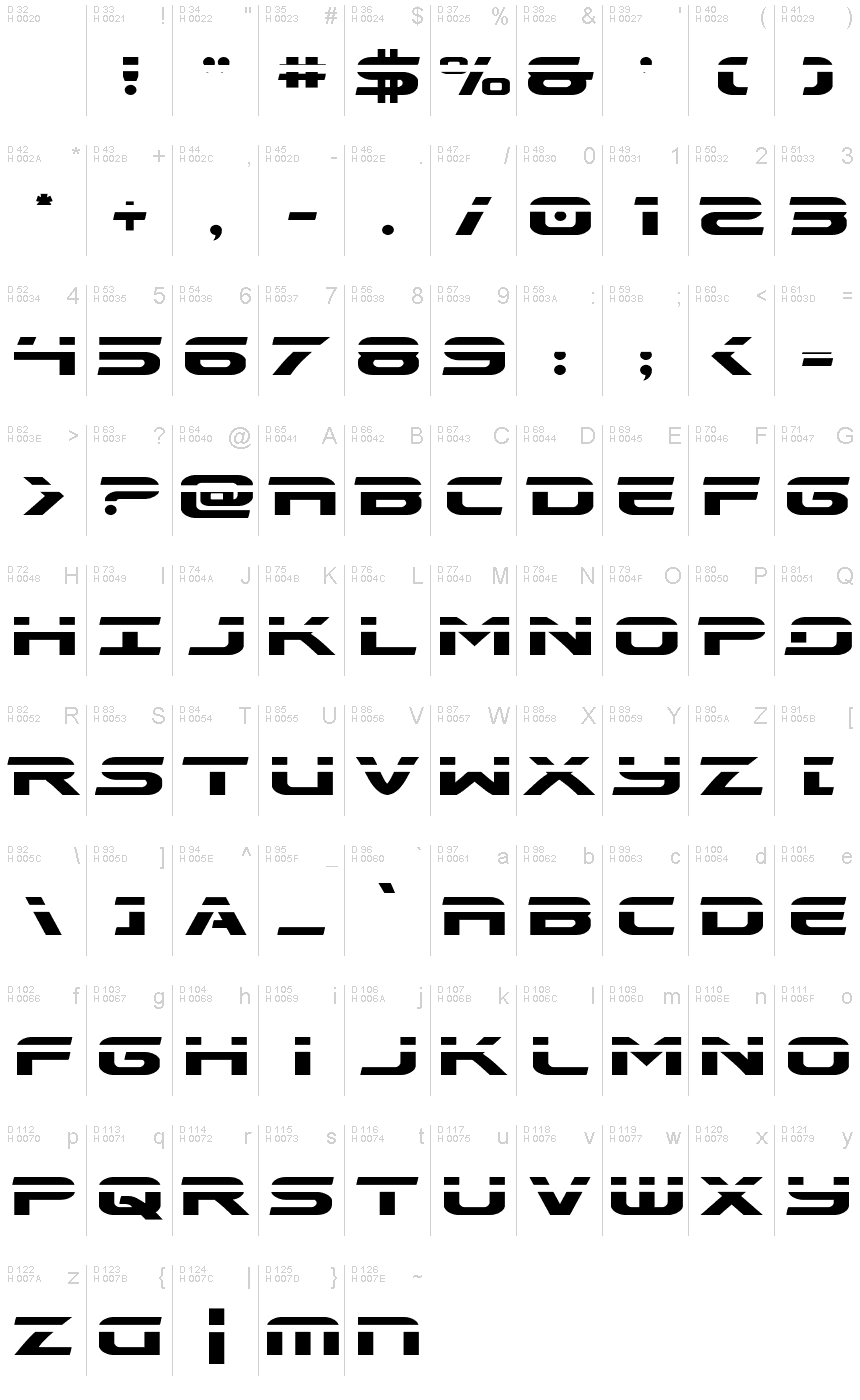
Drius Straight Laser is a bold and futuristic display font from the renowned designer Iconian Fonts. With its sleek and clean lines, this extra-expanded typeface is perfect for projects that require a cutting-edge and modern aesthetic.
Its bold weight adds impact and confidence to any design, making it suitable for creating attention-grabbing headlines, logos, or posters. Whether you're working on sci-fi movie titles or designing sleek tech websites, Drius Straight Laser will give your project a futuristic edge that captivates the audience.
Drius Straight Laser